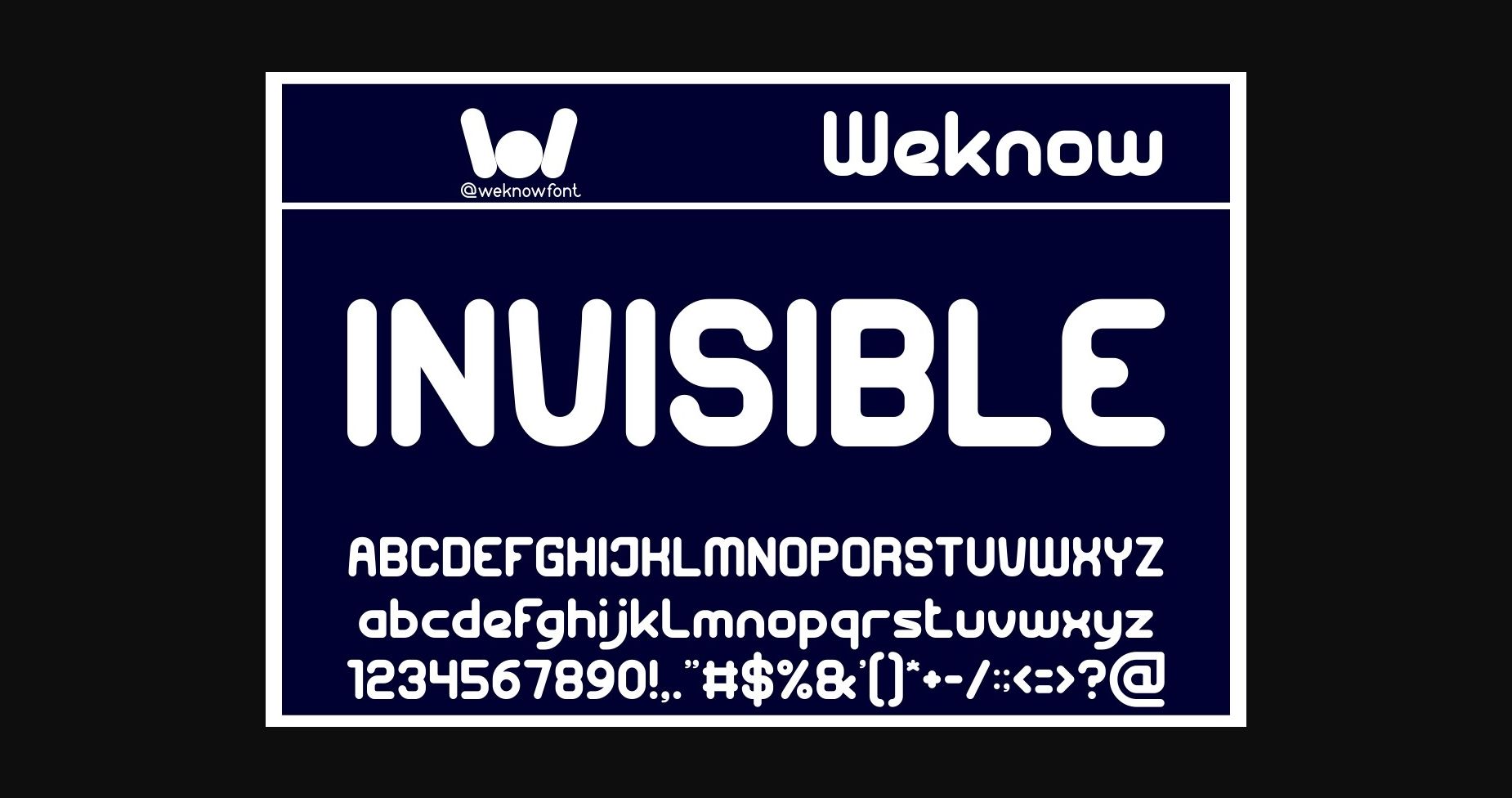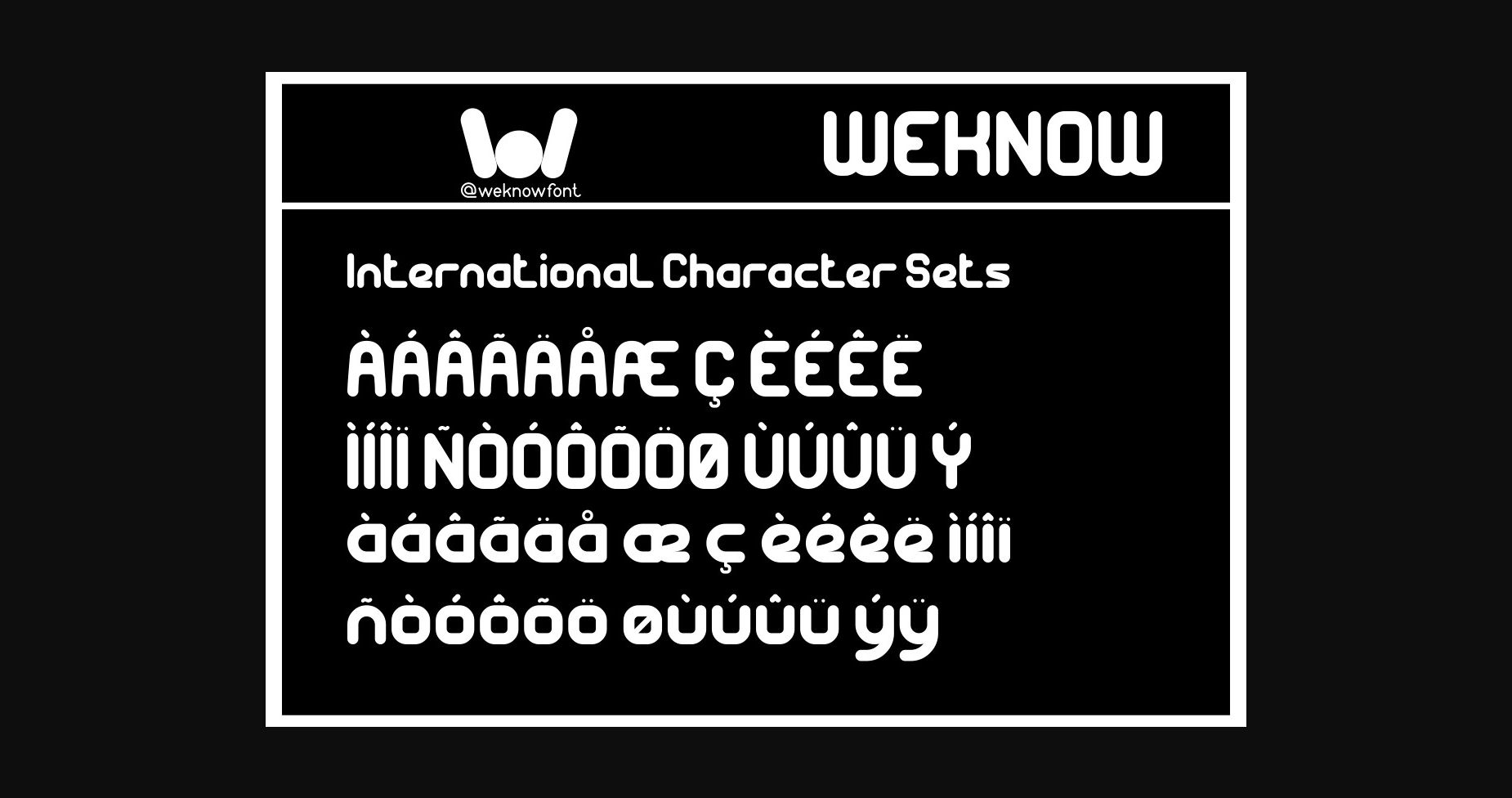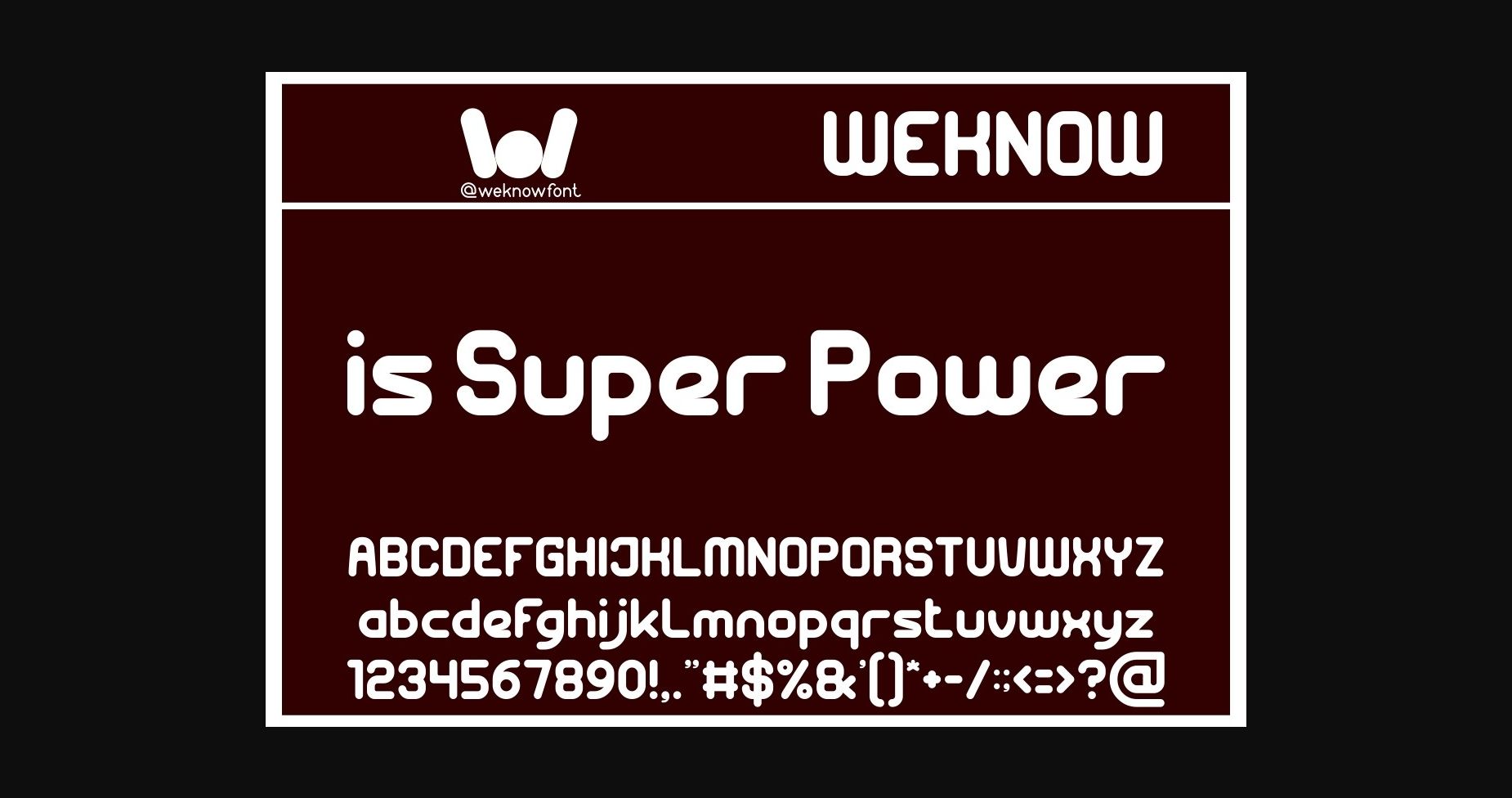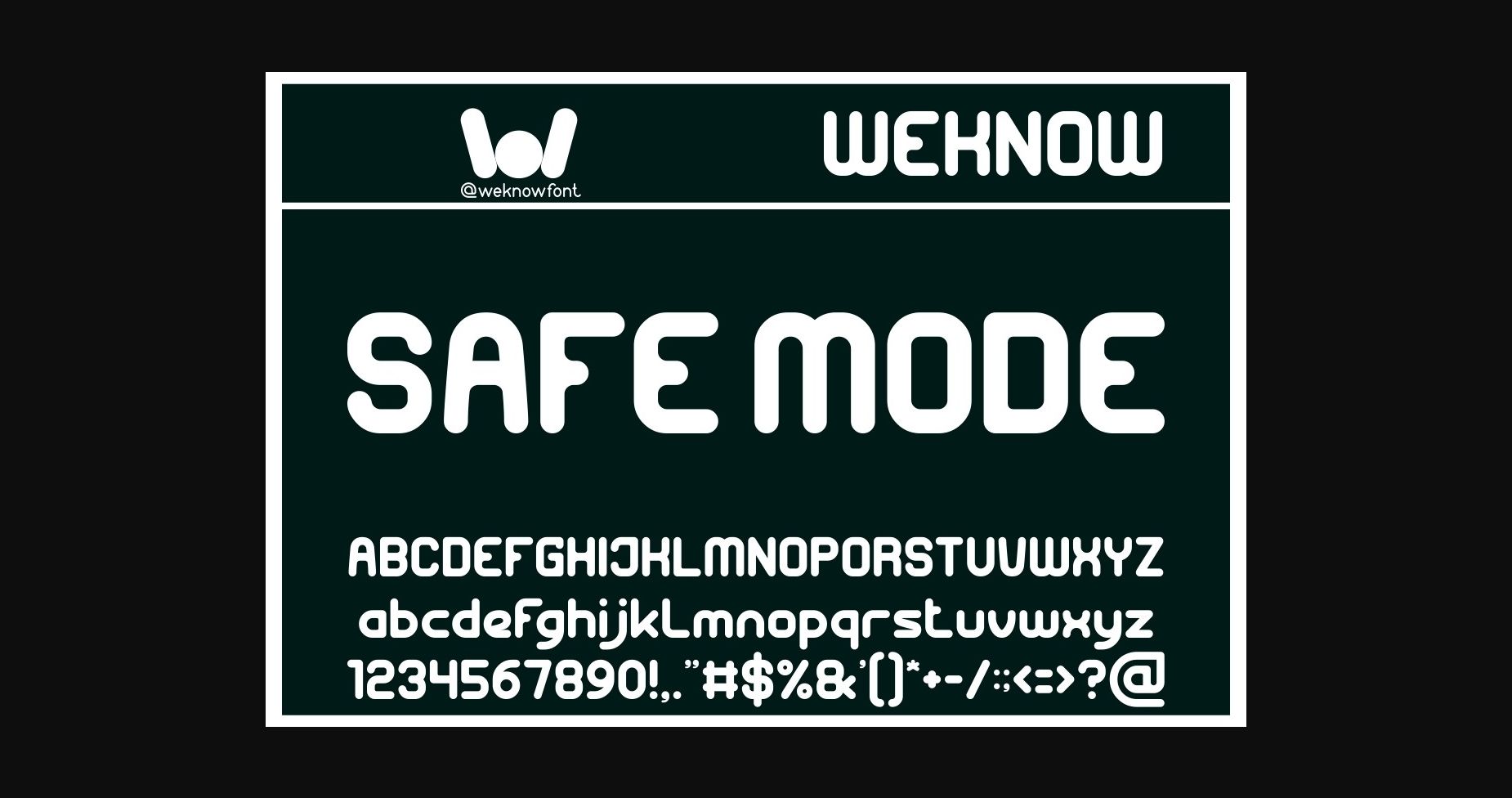
Invisible Font
About Invisible Font
Invisible is a sans serif basic display font suitable for use on a logo, logotype, headline, corporate identity, brand identity, apparel industry, music, movie, game, magazine, book, cartoon, YouTube, Instagram, website, or any of your creative design projects.